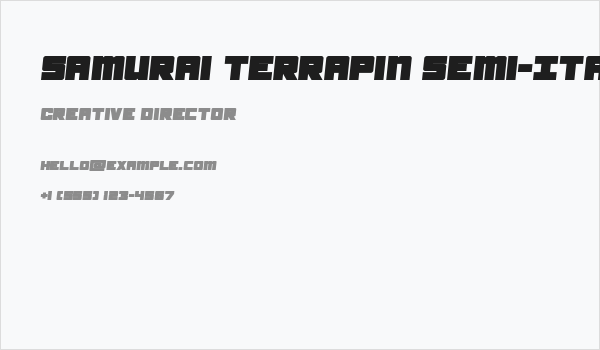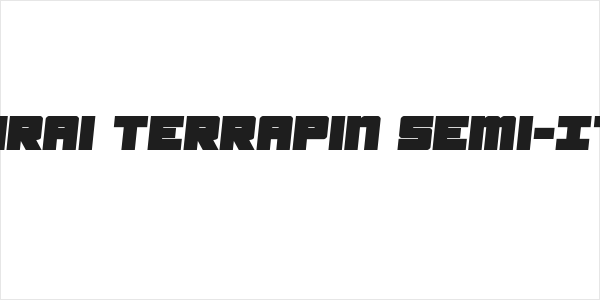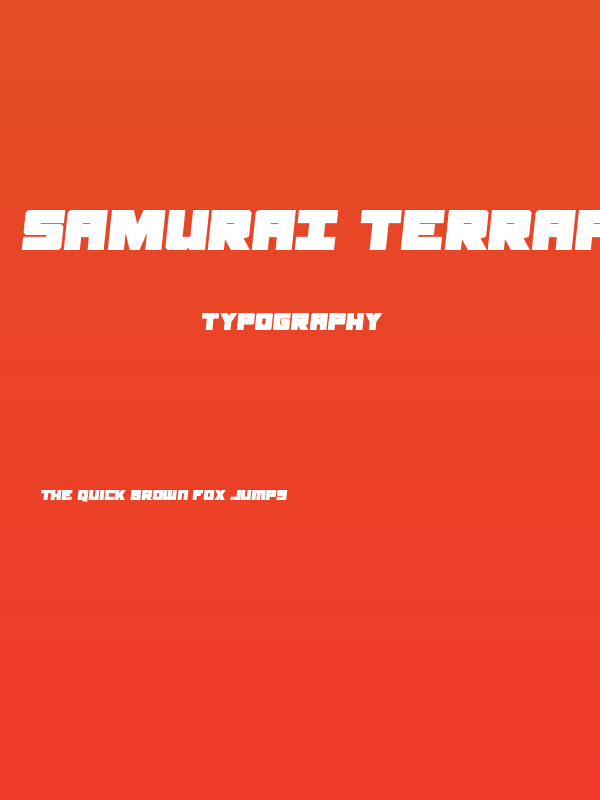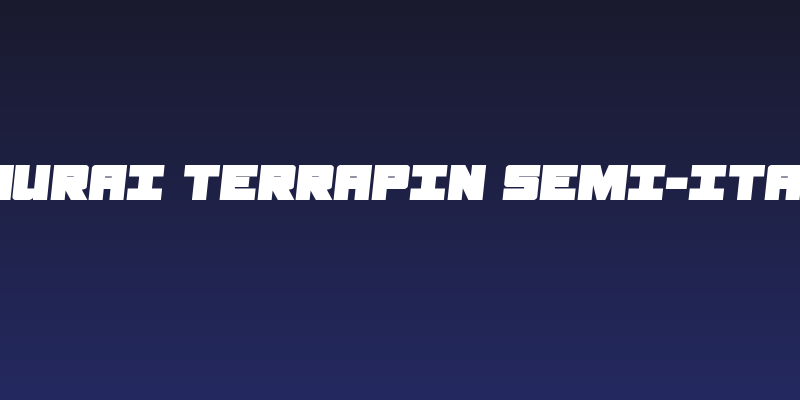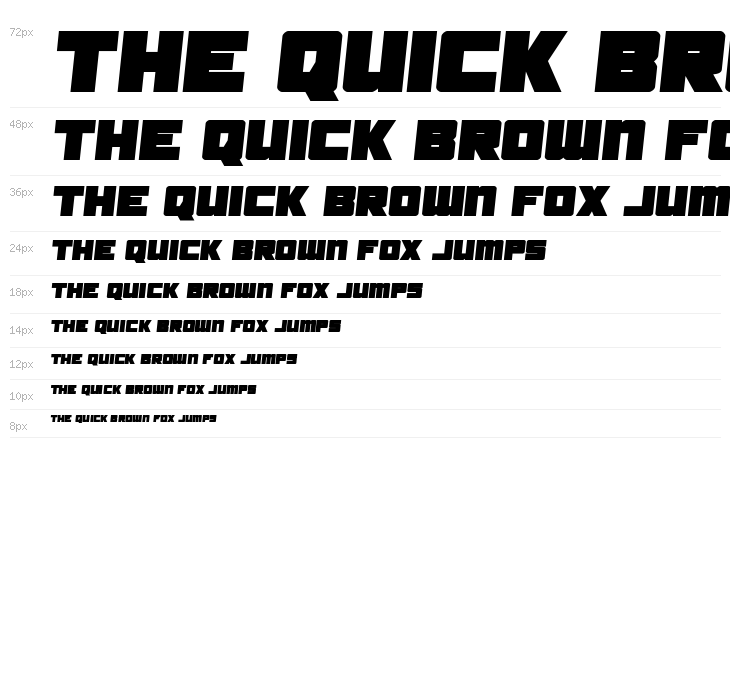
Samurai Terrapin Semi-Italic Font
Samurai Terrapin Semi-Italic Description
This font features a bold and dynamic style with a semi-italic slant, giving it a sense of movement and energy. The characters are blocky and robust, with a strong presence that commands attention. The uppercase and lowercase letters maintain a consistent width, creating a uniform appearance. The numbers and special characters are designed to match the boldness of the letters, ensuring a cohesive look across all text elements. The font's geometric shapes and sharp angles contribute to its modern and edgy aesthetic, making it suitable for impactful designs.
| Proposed Projects | Ideal for sports branding, action-themed posters, video game titles, and dynamic logos. |